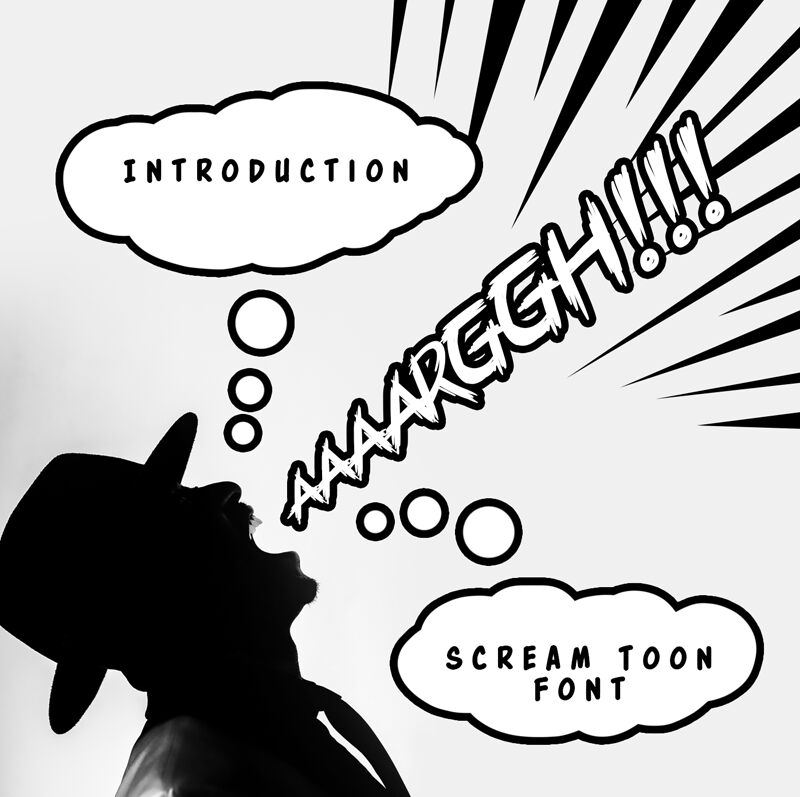
ArghDemo Italic
Argh font is a trash script typeface designed by Esa Prasetio Nugroho of Aphriell Art.
To create a cool combination, just explore the regular or italic, there are two styles italic and regular. The Argh inspire from scream screen on Korean comics or webtoons.
The Argh is a suitable font for many creative products & designs.